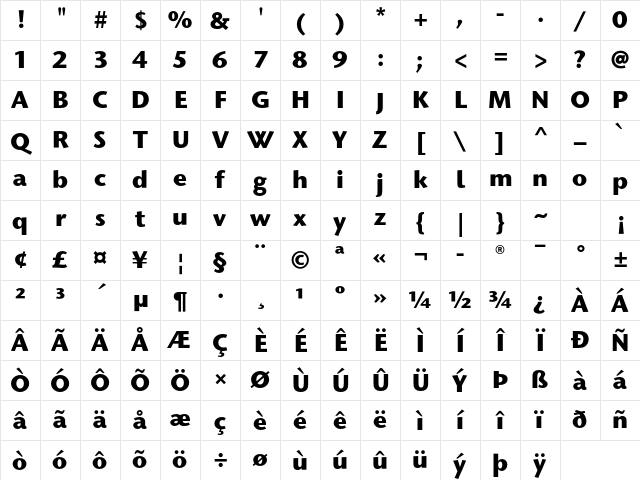
Stone Humanist ITC Std Bold
Designer: Sumner Stone
Design Context for Stone Humanist ITC Std
Stone Humanist ITC Std is a composed and adaptable typeface that performs quietly and consistently across a wide range of design contexts. Its bold stroke weight gives it real presence on the page.